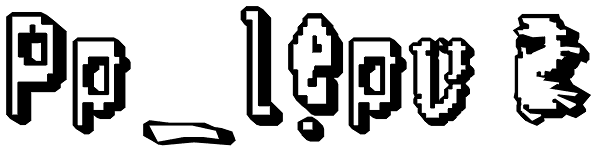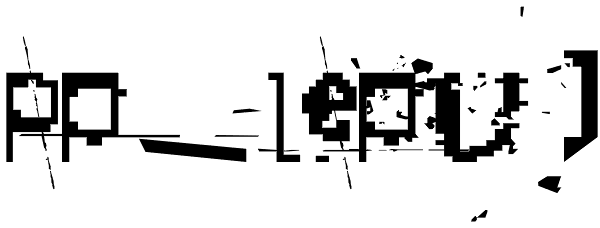
Pp_lepu
Pp_lepu was started in 1999 and consists in the systematic distortion of the printed letters on movies stickers. Its design process was based on burning, getting wet, drying, sanding, copying and scanning with low resolution until getting an...